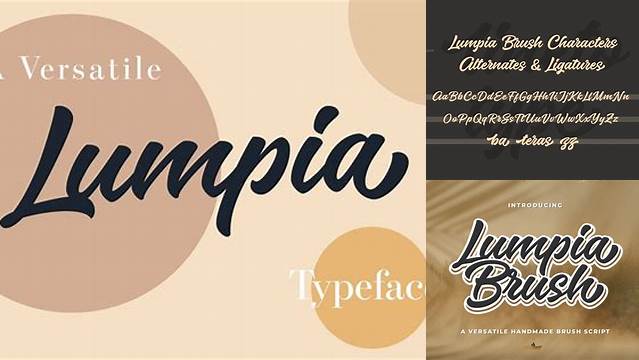
Lumpia Brush Free Font: Your Creative Edge
Hey guys! Ready to add some serious flair to your projects? Let’s dive into the world of the Lumpia Brush Free Font! This font is a game-changer, offering a unique, hand-lettered feel that can elevate your designs from meh to magnificent. Whether you're working on branding, posters, social media graphics, or even personal projects, the Lumpia Brush font has got you covered. Its raw, authentic style makes it incredibly versatile and perfect for injecting personality into any creative endeavor. So, grab your digital pencils and let's explore why this font should be your next go-to resource!
What Makes Lumpia Brush Font Special?
The Lumpia Brush Free Font stands out because it perfectly captures the essence of hand-drawn typography. Unlike overly polished, generic fonts, Lumpia Brush has a distinct, organic quality that makes it feel personal and approachable. The slightly irregular strokes and textured edges give it a human touch, making your designs feel more authentic and less like they were churned out by a machine. This is especially important in a world where consumers crave genuine connections with brands and creatives. By using Lumpia Brush, you're not just choosing a font; you're choosing to communicate with your audience in a way that feels real and relatable. The beauty of this font lies in its imperfections, which add character and depth to your work.
Using Lumpia Brush Font in Graphic Design
Lumpia Brush Free Font is a fantastic asset for graphic design, offering a unique hand-lettered style that can significantly enhance your projects. When incorporating this font into your designs, consider its strengths: its informal, textured appearance makes it ideal for projects that need a personal touch. Think about using it for headings and titles in posters, flyers, and social media graphics. The font's distinct character can grab attention and set a casual, friendly tone. However, it’s also important to ensure readability; avoid using it in large blocks of text. Instead, pair it with a simpler, cleaner font for body text to maintain balance and clarity. Experiment with different colors and sizes to see how Lumpia Brush interacts with other design elements, and don’t be afraid to add subtle shadows or outlines to make it pop even more.
Utilizing Lumpia Brush Font for Branding
For branding, the Lumpia Brush Free Font can bring a unique and approachable feel to your company's visual identity. It’s particularly effective for brands aiming to project a creative, friendly, or artisanal image. Imagine a local coffee shop using this font for their logo and promotional materials – the hand-drawn style communicates warmth and authenticity, inviting customers to feel at home. When using it for branding, consider consistency. While the font can be eye-catching, overusing it might dilute its impact. Instead, use it strategically for key elements like the logo, tagline, or main headings, and complement it with a more neutral font for other text. This approach ensures that your brand maintains a cohesive and professional appearance while still leveraging the unique charm of the Lumpia Brush font. Also, make sure the font aligns with your brand's overall personality and values.
Lumpia Brush Font in Web Design
Integrating the Lumpia Brush Free Font into web design can add a touch of personality and uniqueness to your site. However, it's crucial to use it judiciously to maintain readability and user experience. This font works exceptionally well for headings, banners, and decorative elements, providing a visual break from the standard web fonts. Think about using it for section titles or call-to-action buttons to draw attention and create a memorable impression. When implementing it, optimize the font for web use by ensuring it loads quickly and displays correctly across different browsers and devices. Also, consider the overall design aesthetic of your website; the font should complement the existing color scheme, layout, and imagery. Pairing it with a clean, sans-serif font for body text can strike a perfect balance between style and readability, making your website both visually appealing and user-friendly.
Pairing Lumpia Brush Font with Other Fonts
One of the keys to effectively using the Lumpia Brush Free Font is knowing how to pair it with other fonts. Because Lumpia Brush is a display font with a strong personality, it works best when combined with simpler, more neutral fonts that won't compete for attention. A classic pairing is with a clean sans-serif font like Open Sans, Montserrat, or Lato. These fonts provide a clear, legible contrast to the hand-drawn feel of Lumpia Brush, ensuring that your text remains readable and balanced. Another good option is to pair it with a simple serif font like Merriweather or Roboto Slab, which can add a touch of sophistication while still maintaining readability. When choosing a pairing font, consider the overall tone and purpose of your design. The goal is to create a harmonious balance between the two fonts, where each complements the other without overpowering it.
Lumpia Brush Font for Social Media Graphics
Lumpia Brush Free Font is a fantastic choice for creating engaging and eye-catching social media graphics. Its informal, hand-lettered style is perfect for grabbing attention in a crowded feed. Use it for headlines, quotes, and special announcements to make your posts stand out. Consider incorporating it into your Instagram stories, Facebook ads, and Twitter banners to add a personal touch. When designing for social media, remember that visuals are key. Combine the font with vibrant colors, bold images, and compelling layouts to maximize its impact. Also, keep in mind the different dimensions and formats required by each platform, and optimize your graphics accordingly. By using Lumpia Brush strategically, you can create social media content that not only looks great but also resonates with your audience and drives engagement.
Creating Logos with Lumpia Brush Font
The Lumpia Brush Free Font can be an excellent choice for creating logos, especially for brands that want to convey a sense of creativity, authenticity, or playfulness. Its hand-drawn style gives logos a unique, approachable feel that can help them stand out from the competition. When designing a logo with this font, start by experimenting with different letter combinations and arrangements to see what works best for your brand. Consider incorporating simple graphics or icons to complement the text and reinforce your brand's message. Also, pay attention to the overall balance and legibility of the logo. While the font is eye-catching, it's important to ensure that the logo remains readable and recognizable at various sizes. Test it on different backgrounds and in different contexts to make sure it works well in all situations. With careful planning and execution, the Lumpia Brush font can help you create a logo that truly captures the essence of your brand.
The Psychology of Fonts: Why Lumpia Brush Works
The Lumpia Brush Free Font works because it taps into the psychology of fonts, triggering specific emotional responses and associations in viewers. Its hand-drawn style evokes a sense of authenticity, creativity, and informality, making it feel more approachable and relatable than more formal fonts. The slightly irregular strokes and textured edges add a human touch, conveying a sense of warmth and personality. This can be particularly effective for brands or projects that want to connect with their audience on a personal level and create a sense of trust and connection. However, it's important to consider the context in which the font is used and ensure that it aligns with the overall message and brand identity. By understanding the psychology of fonts, you can use the Lumpia Brush font strategically to create designs that resonate with your target audience and achieve your desired emotional impact.